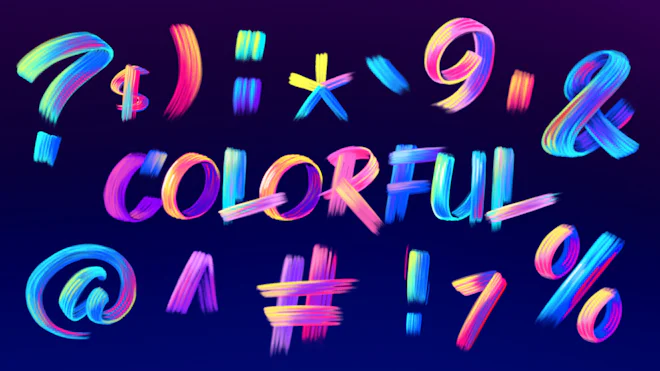
This stock motion graphics video pack includes 73 colorful paintbrush typefaces and elements on a transparent alpha channel. The pack includes the alphabet, numbers, special symbols, and flying stroke lines.